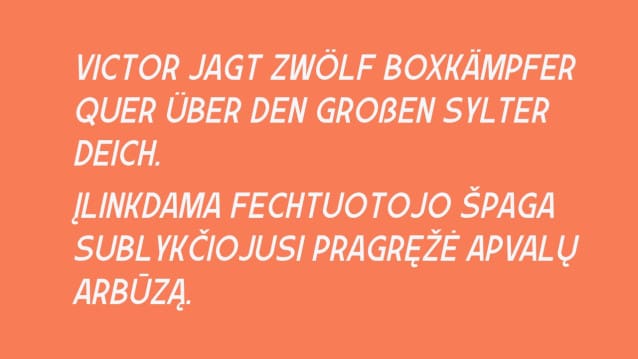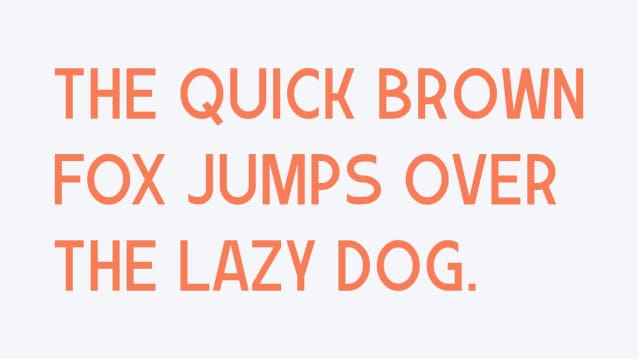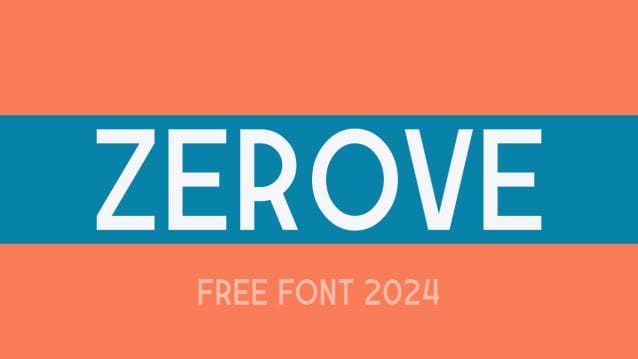
Zerove Font
Zerove Font a bold statement with our latest sans-serif font. With its clean lines and modern appeal, this font is sure to turn heads and leave a lasting impression. Perfect for headlines, logos, and any design that demands attention. It is both functional and stylish, making it a versatile choice for a wide range of design projects.